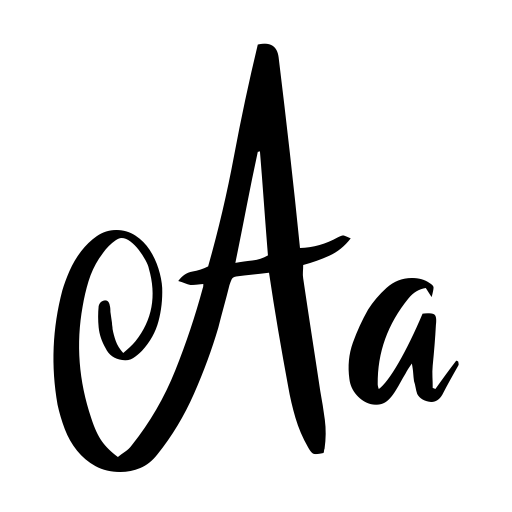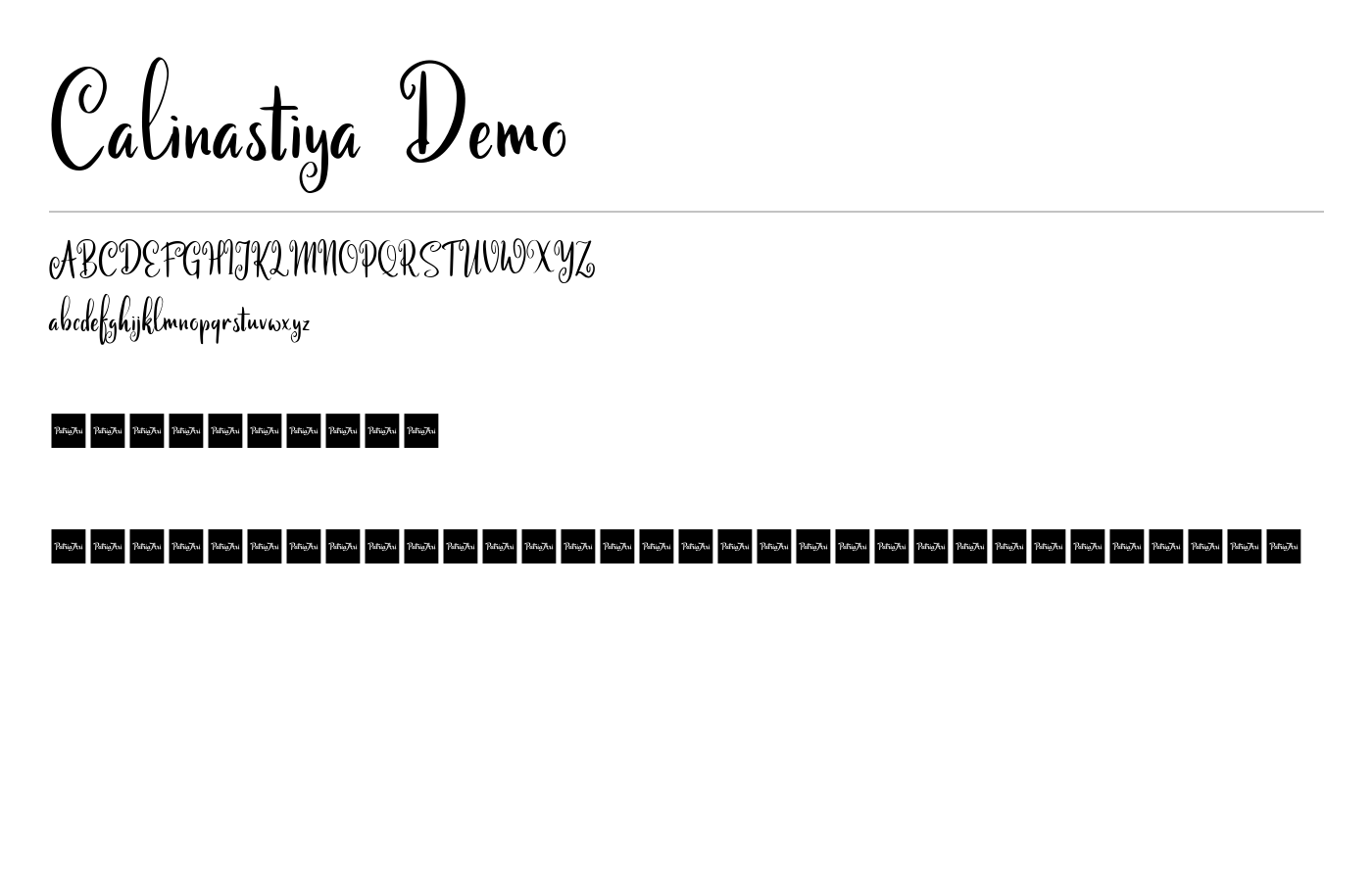
Calinastiya is an elegant, handwritten script font with a delicate and whimsical style, featuring slender strokes and graceful swashes. Its tall x-height and fluid letterforms create a charming, personal feel perfect for invitations, branding, and feminine design projects. This font works well in headlines and decorative text where a soft, artistic touch is desired.
Calinastiya Font
About Calinastiya Font
| Font family | Calinastiya Font |
| Designer | Patria Ari Wijonarko |